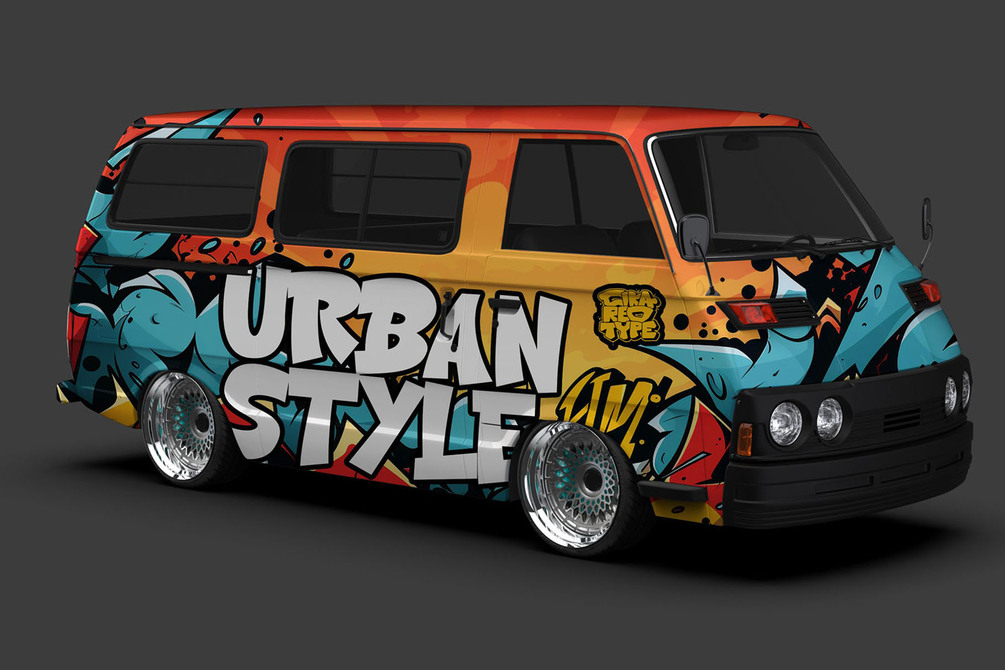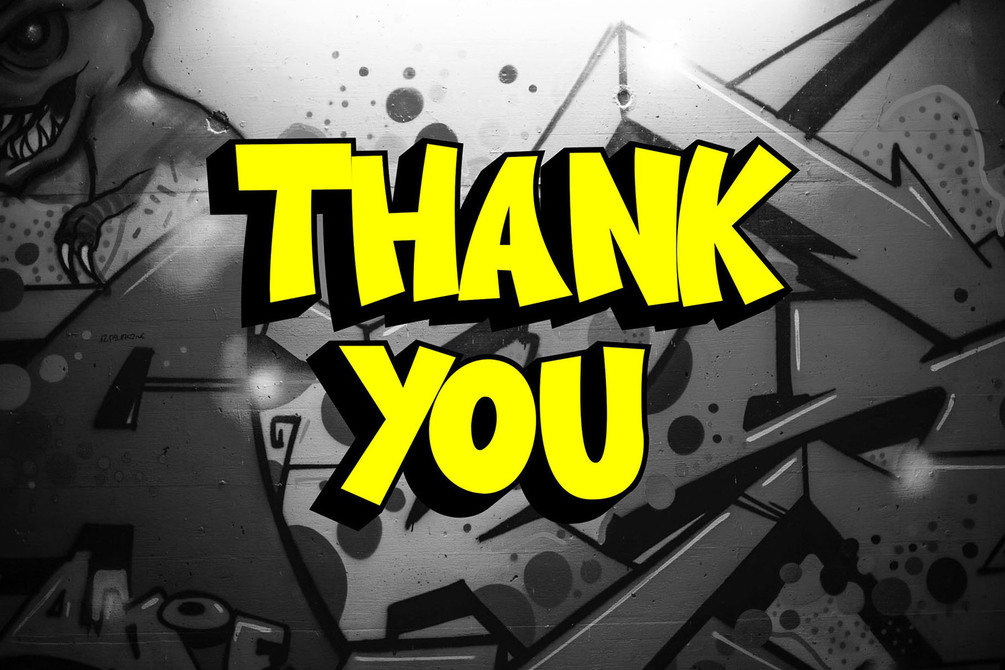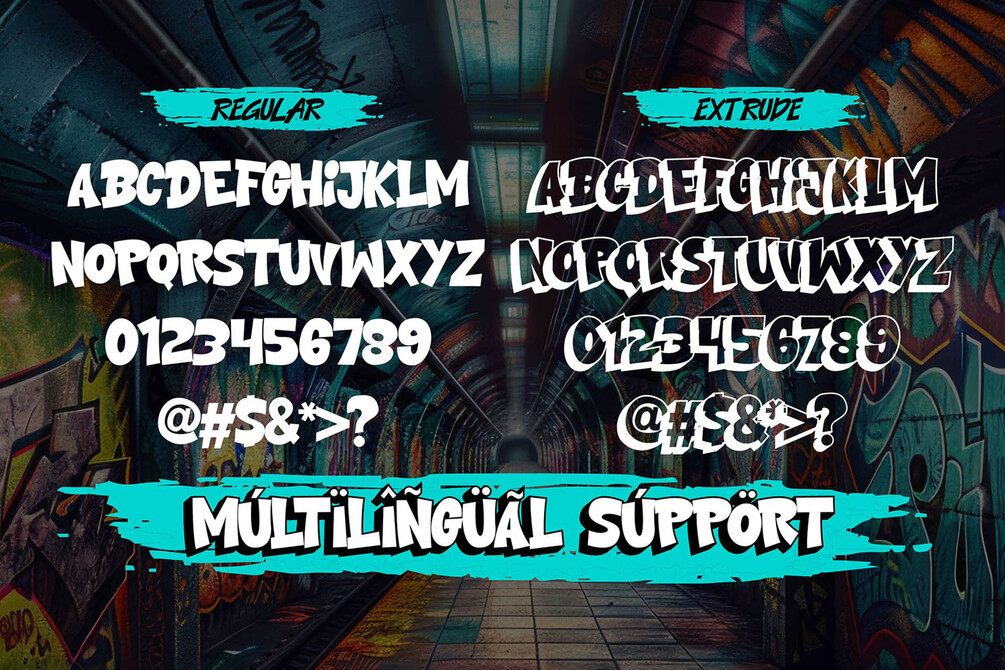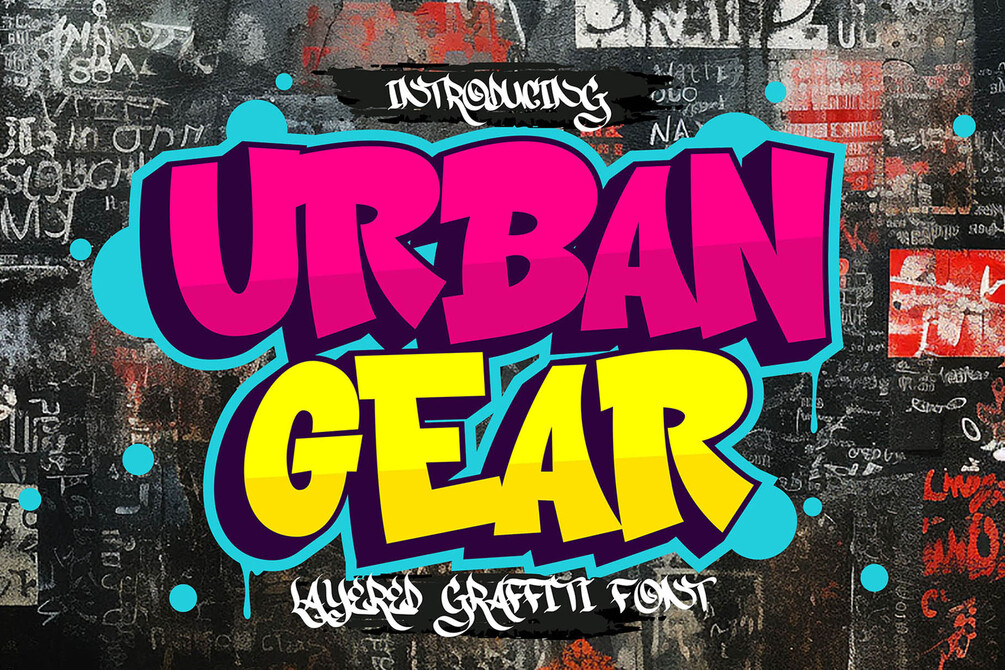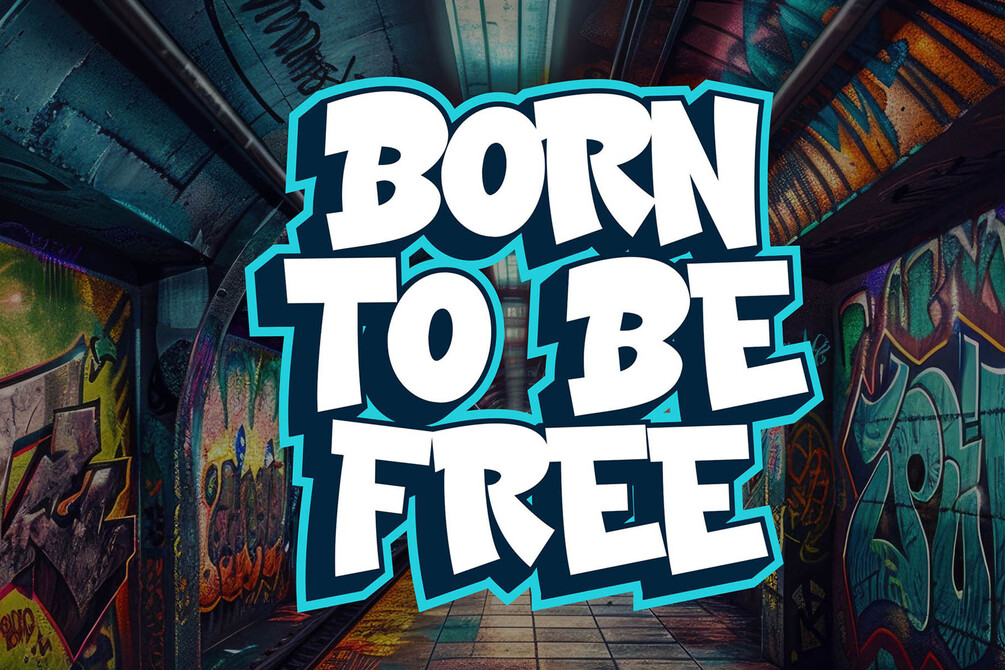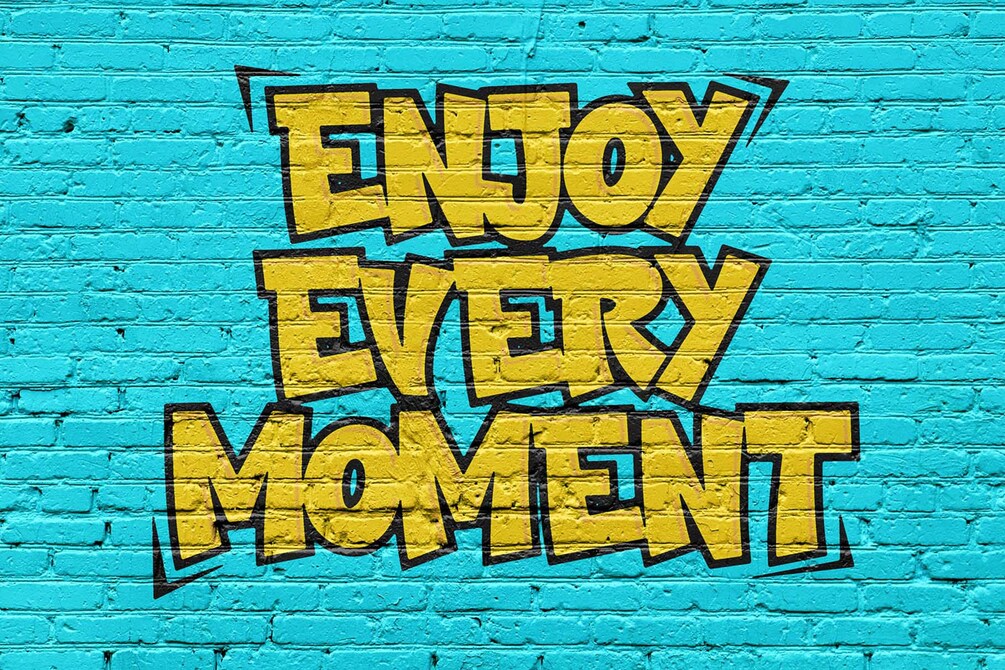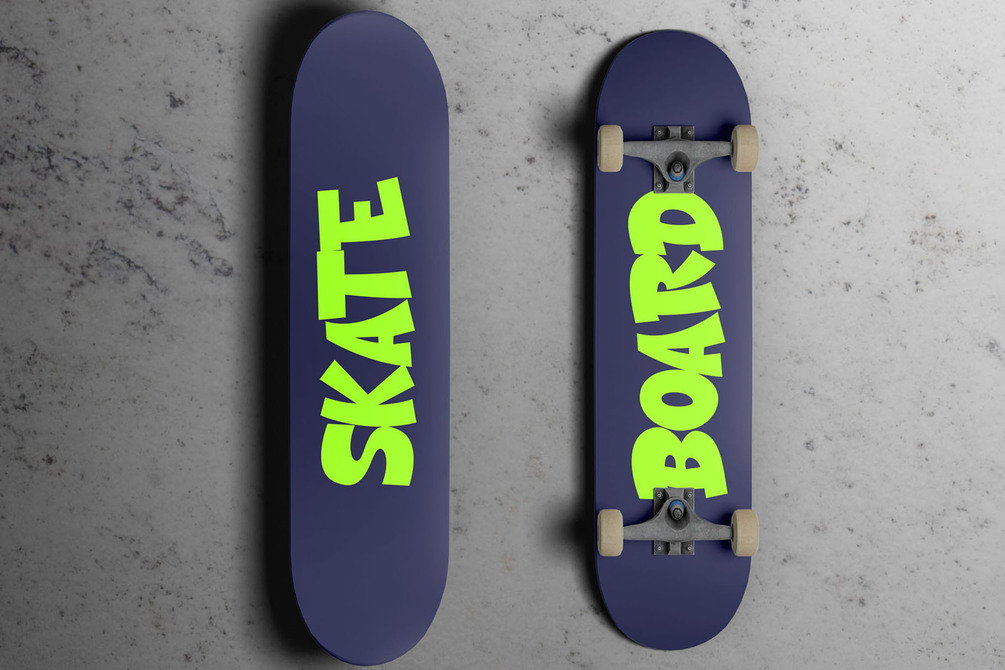
"Urban Gear is an extruded graffiti font that captures the bold, dynamic, and expressive spirit of street art. Featuring a 3D extruded design, this font creates a sense of depth and dimension, giving text a strong, standout presence. Its edgy, hand-drawn letterforms are designed to make a statement, perfect for projects that need a touch of raw, urban flair. Whether you’re designing eye-catching posters, striking headlines, or unique branding, Urban Gear delivers an authentic graffiti aesthetic that stands out. This font is ideal for designs that seek to convey a sense of attitude, creativity, and street-smart style, bringing the essence of urban culture into every letter."